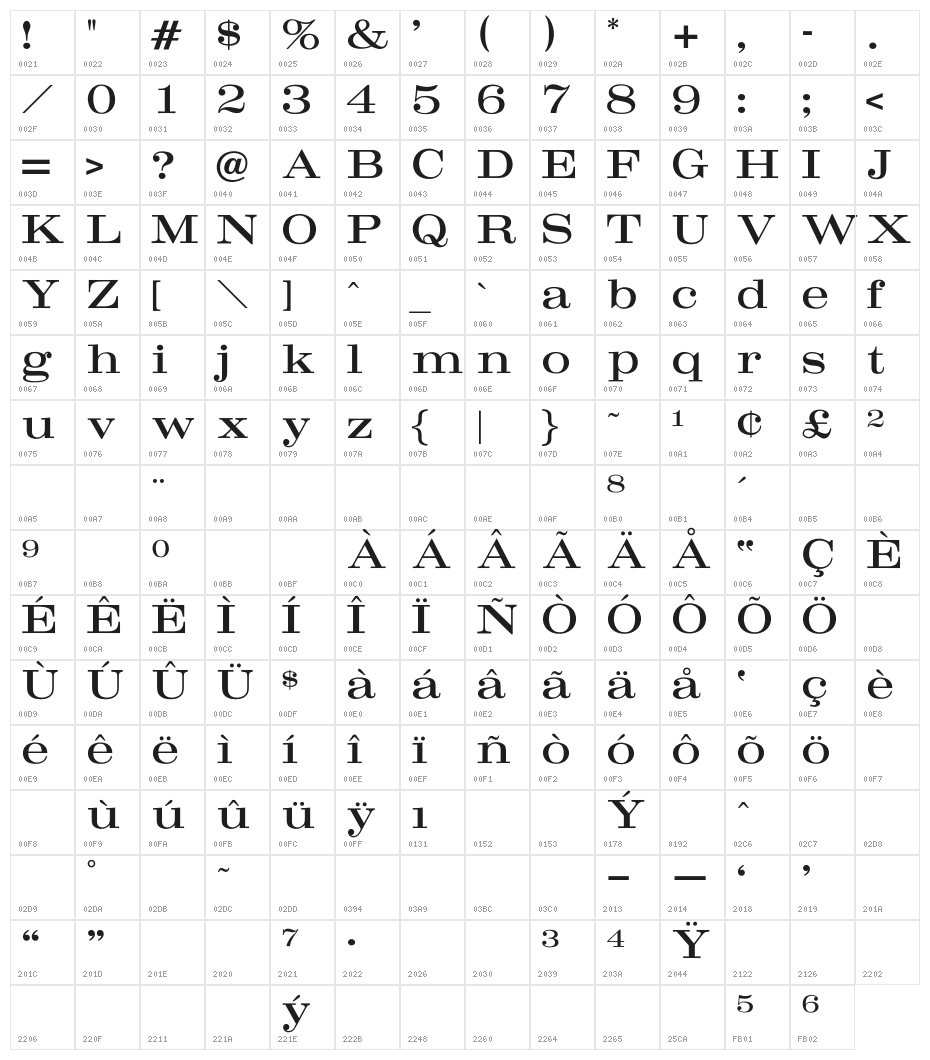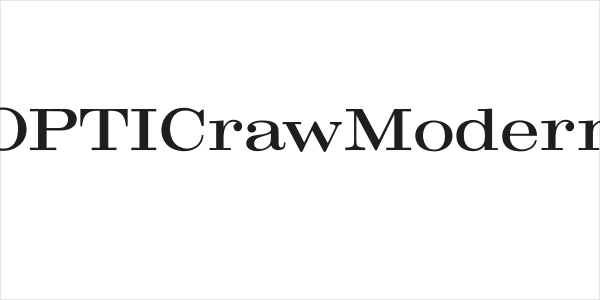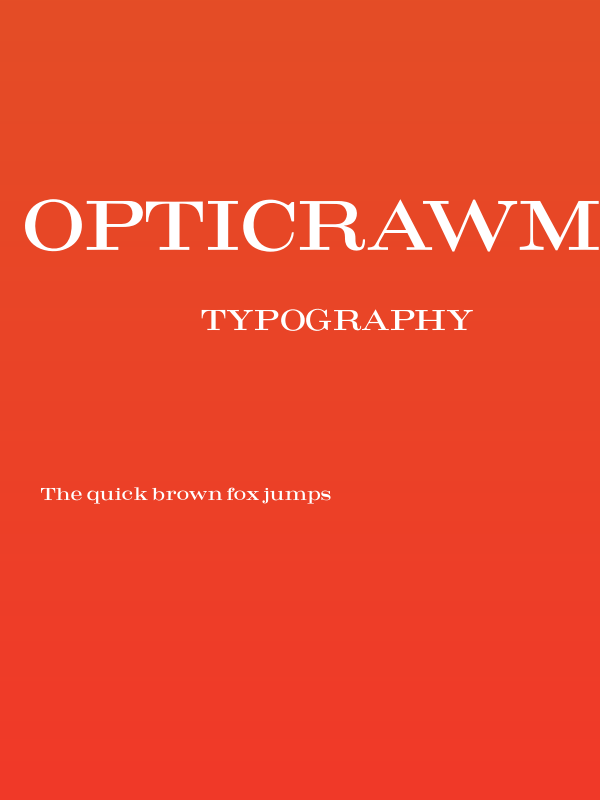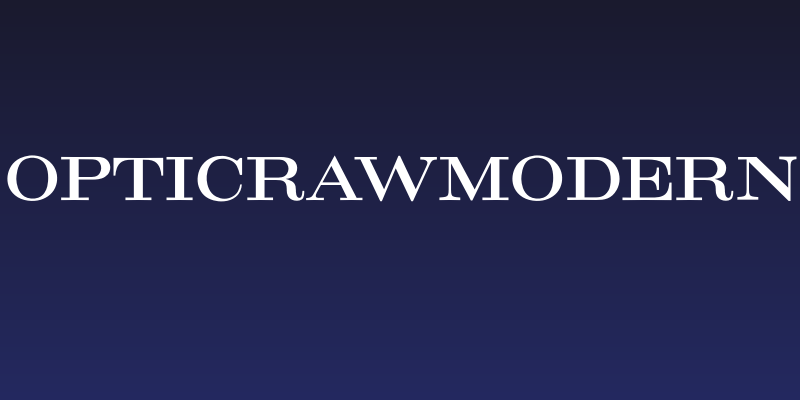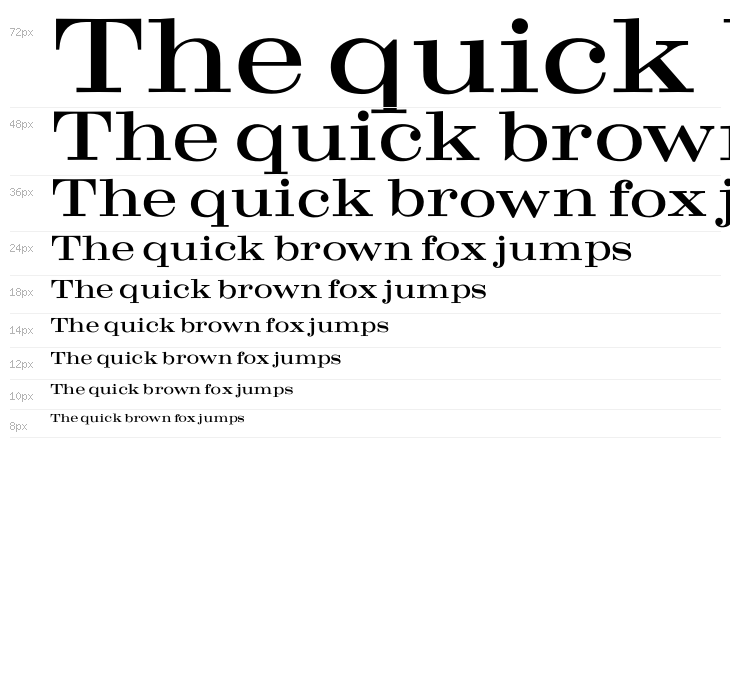
OPTICrawModern Font
OPTICrawModern Description
This font features a classic serif style with a modern twist, characterized by its elegant and sophisticated appearance. The uppercase letters are bold and commanding, while the lowercase letters maintain a refined and balanced look. The numerals are clear and distinct, making them easy to read. Special characters are designed with a touch of flair, adding to the font's overall charm. The strokes vary in thickness, providing a medium contrast that enhances readability without compromising on style. This font is versatile, suitable for both formal and creative projects.
| Proposed Projects | Ideal for editorial design, branding, book covers, and high-end product packaging. |